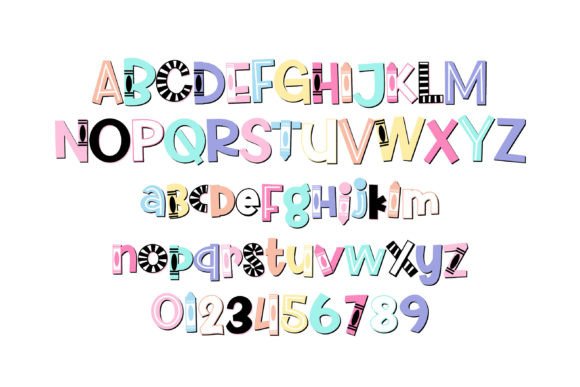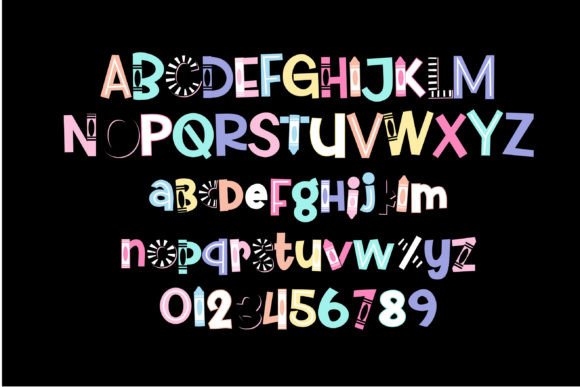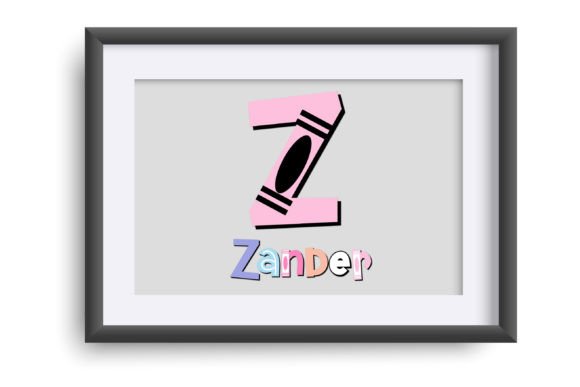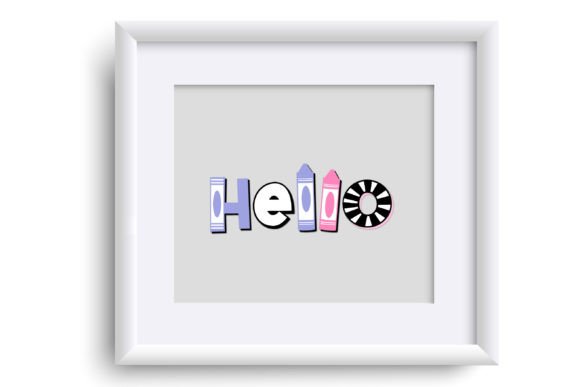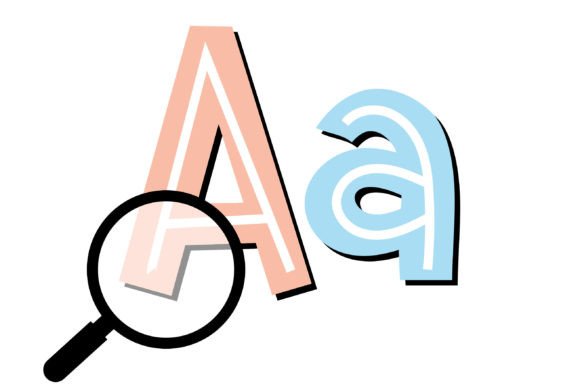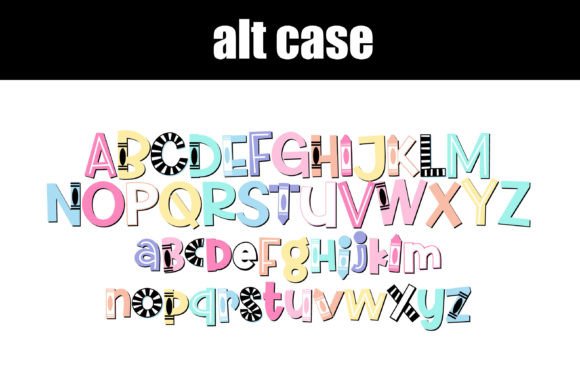
Introduction to Krayola Font
Have you ever been working on a creative project, pouring your heart and soul into a design, only to realize that the perfect font is missing? That’s where the Krayola Font comes in – a vibrant, full-color font that’s sure to bring your designs to life. With its youthful, “crayon-inspired” lettering, this font is a design resource like no other.
Whether you’re a professional designer or just starting out, the Krayola Font is a valuable addition to your design toolkit. Its high-quality, transparent background design makes it perfect for creating eye-catching graphics, logos, and more. And, with a free download available, you can get started right away. In this article, we’ll dive into the world of the Krayola Font and explore its features, benefits, and uses in creative projects.
Key Features of Krayola Font
- High-quality, hand-drawn design perfect for creative projects and artistic expressions.
- Features a transparent background, allowing for seamless integration with other design elements.
- Designed with a unique, whimsical style that adds a touch of personality to any project.
- Available in a single size, but can be scaled to fit various design requirements.
- Perfect for use in digital art, graphic design, and other creative pursuits that demand a high level of visual expression.
Honest Review: Krayola Font
As a designer, I’m always on the lookout for high-quality design resources that can help me bring my creative projects to life. Recently, I stumbled upon the Krayola Font, and I’m excited to share my thoughts on it.
What works well: ✨ The Krayola Font is a beautiful, free download that’s perfect for designers who want to add a touch of elegance to their projects. The font features a transparent background, which makes it easy to use as a overlay or texture. The design is also highly customizable, making it a great resource for creative projects.
What doesn’t work well: ⚠️ One of the limitations of the Krayola Font is that it’s a bit limited in terms of character set and language support. Additionally, the font can be a bit too bold for some designs, so it’s essential to use it sparingly.
Overall impression: I’m really impressed with the Krayola Font. It’s a great addition to any designer’s toolkit, and it’s perfect for projects that require a high level of creativity and customization. With its transparent background and customizable design, it’s a must-have resource for any designer looking to elevate their design game.
How to Use Krayola Font
Tips for Getting the Most Out of Krayola Font
Use the Krayola Font on a transparent background to create a unique and eye-catching design.
Combine the Krayola Font with other design elements to create a cohesive and visually appealing design.
The Krayola Font is commonly used for:
Designing digital products, such as mobile apps and websites.
Creating print media, such as brochures and posters.
Developing branding and marketing materials.
Alternatives to Krayola Font
Open Sans is a high-quality, sans-serif font designed for digital interfaces. It’s a great choice for creative projects that require a clean and modern look. Open Sans is available for free download and can be used for personal and commercial projects. When to use: Use Open Sans for digital designs, such as website interfaces, mobile apps, and digital signage. It’s a versatile font that works well for both body text and headings.
Comparison to Krayola Font: Open Sans has a more modern and sleek design compared to Krayola Font’s playful and childlike feel. While Krayola Font is great for creative projects that require a bold and colorful look, Open Sans is better suited for projects that need a clean and sophisticated design.